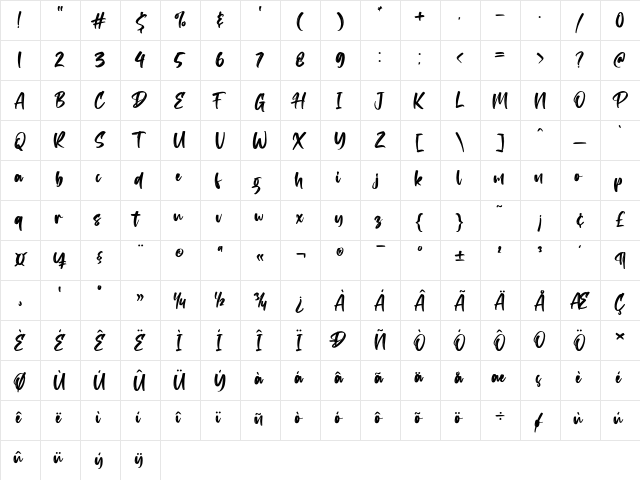
Angeater Regular Font Preview
Angeater Regular
| Foundry | vztype.com |
| Designer | vztype || Randi Ilhamsyah |
Design Context for Angeater Typeface
Angeater is a composed and adaptable typeface that performs quietly and consistently across a wide range of design contexts.